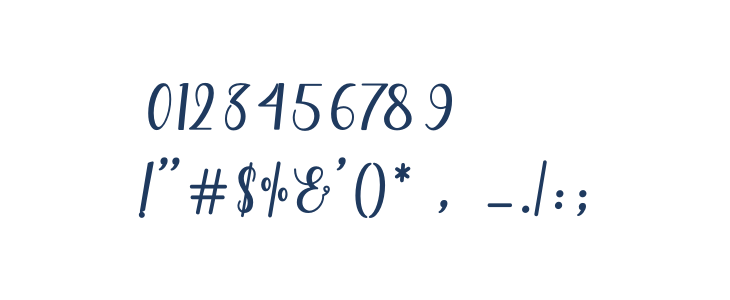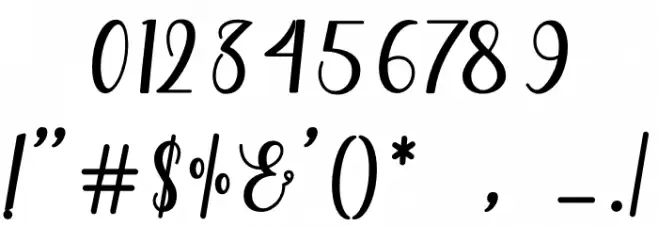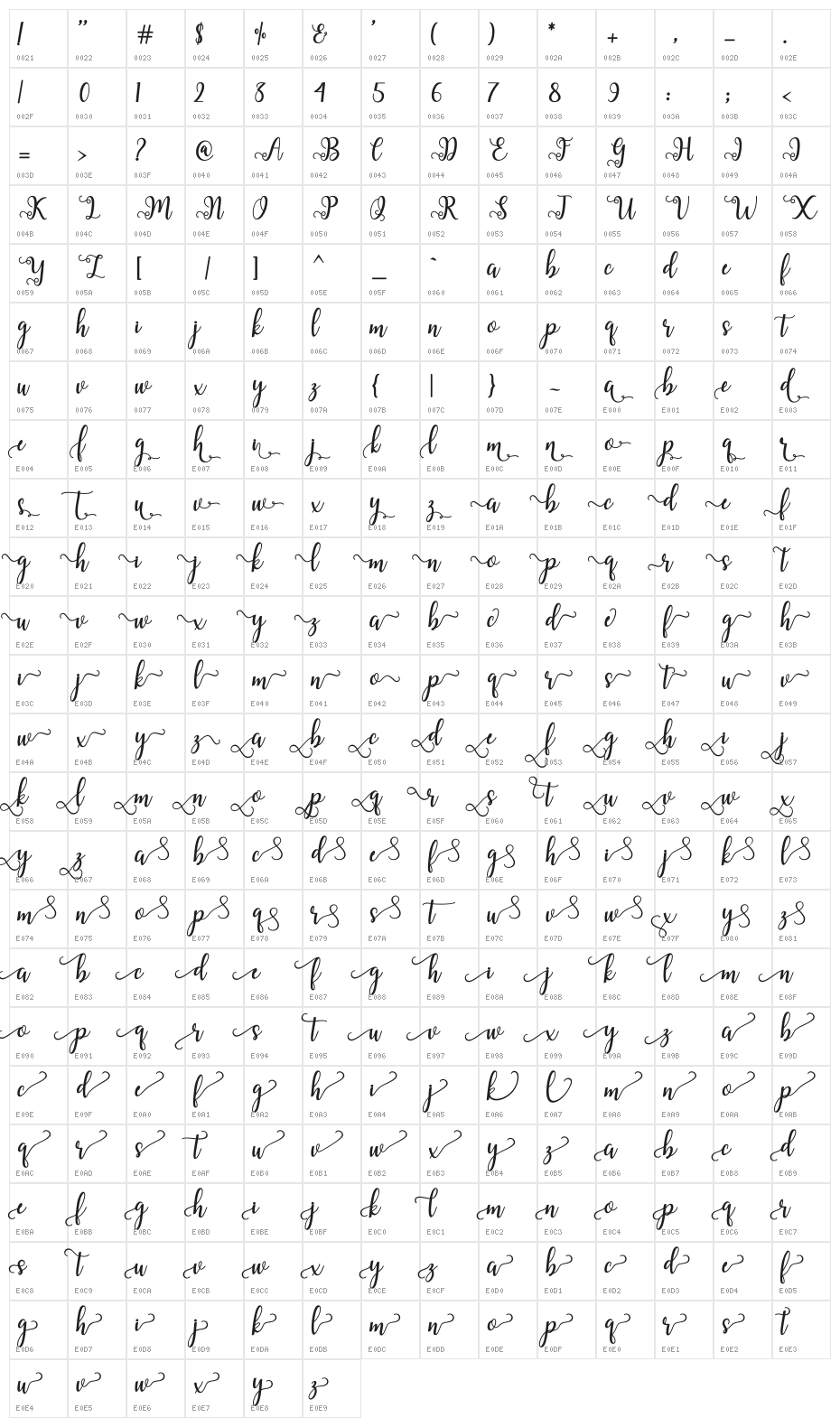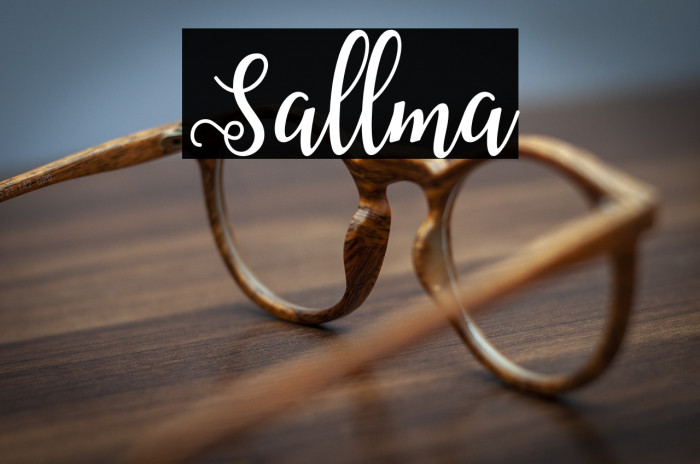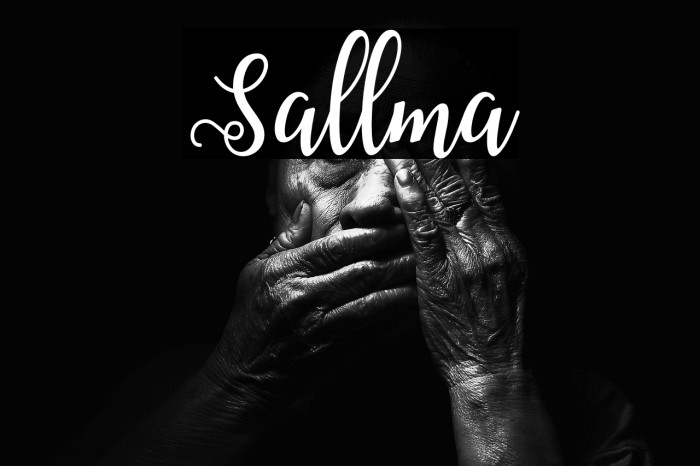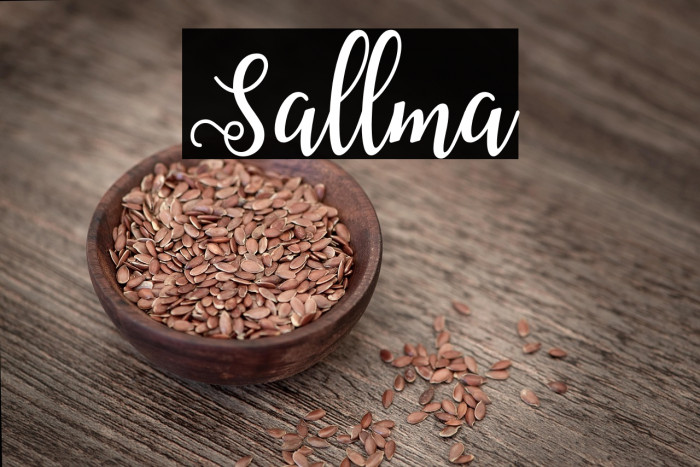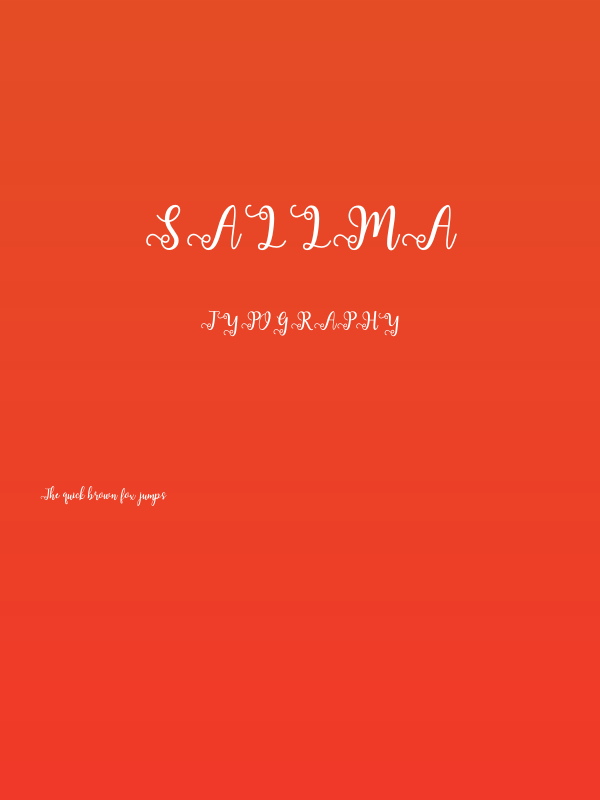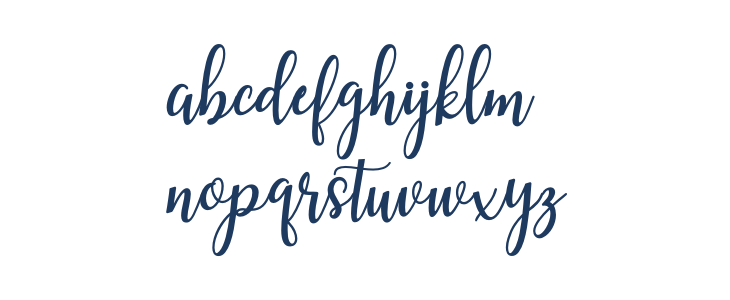
Sallma Font
Sallma Description
This font features an elegant and decorative script style with intricate swirls and flourishes. The uppercase letters are adorned with elaborate curls, giving them a sophisticated and artistic appearance. The lowercase letters maintain a flowing, cursive style that complements the uppercase design. The numerals are clear and legible, with a slight slant that adds to the overall elegance. Special characters are designed with similar decorative elements, ensuring consistency throughout the font. This font is perfect for projects that require a touch of elegance and creativity.
| Use Case | Logos, Invitations, Decorative Text |